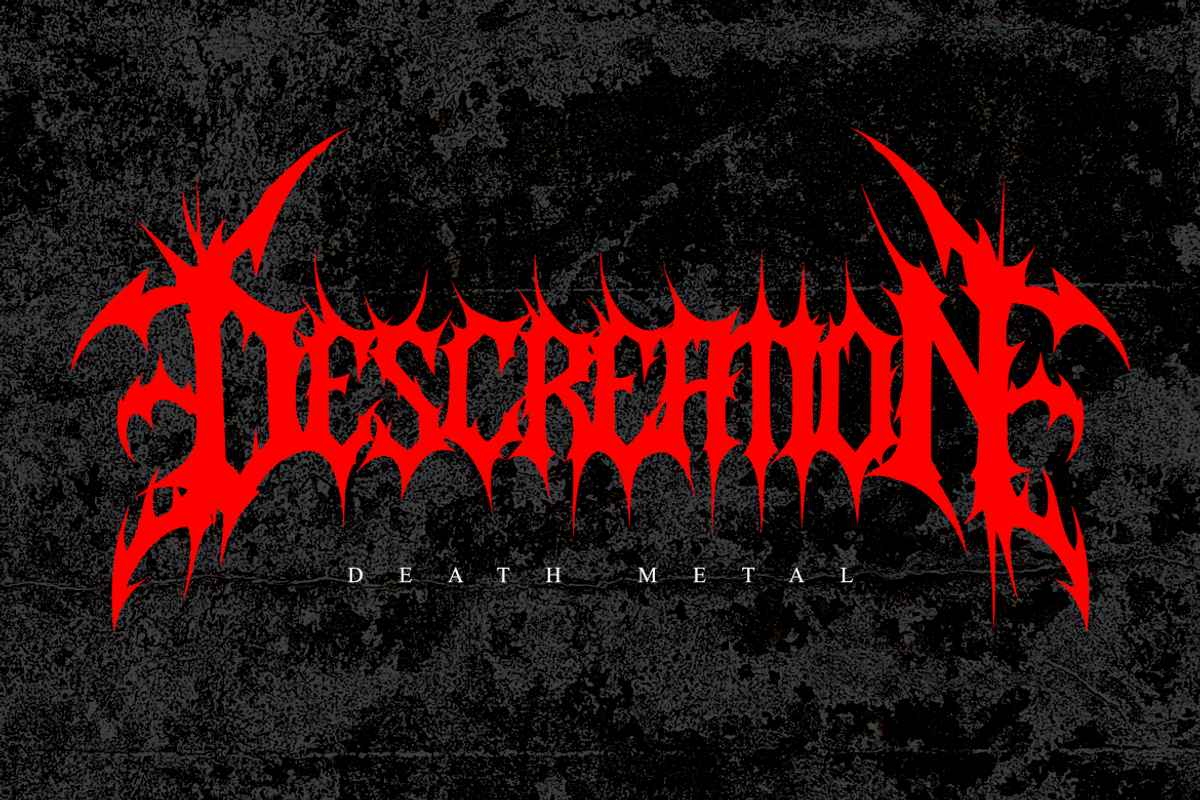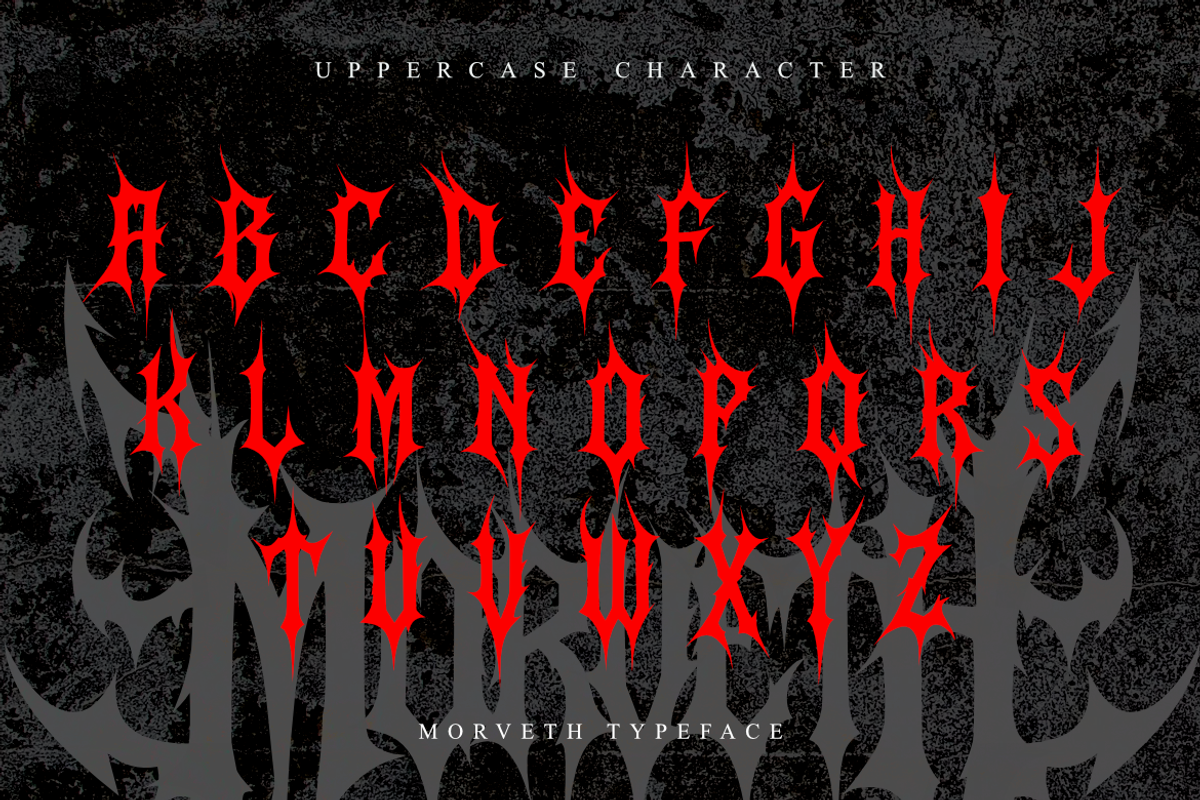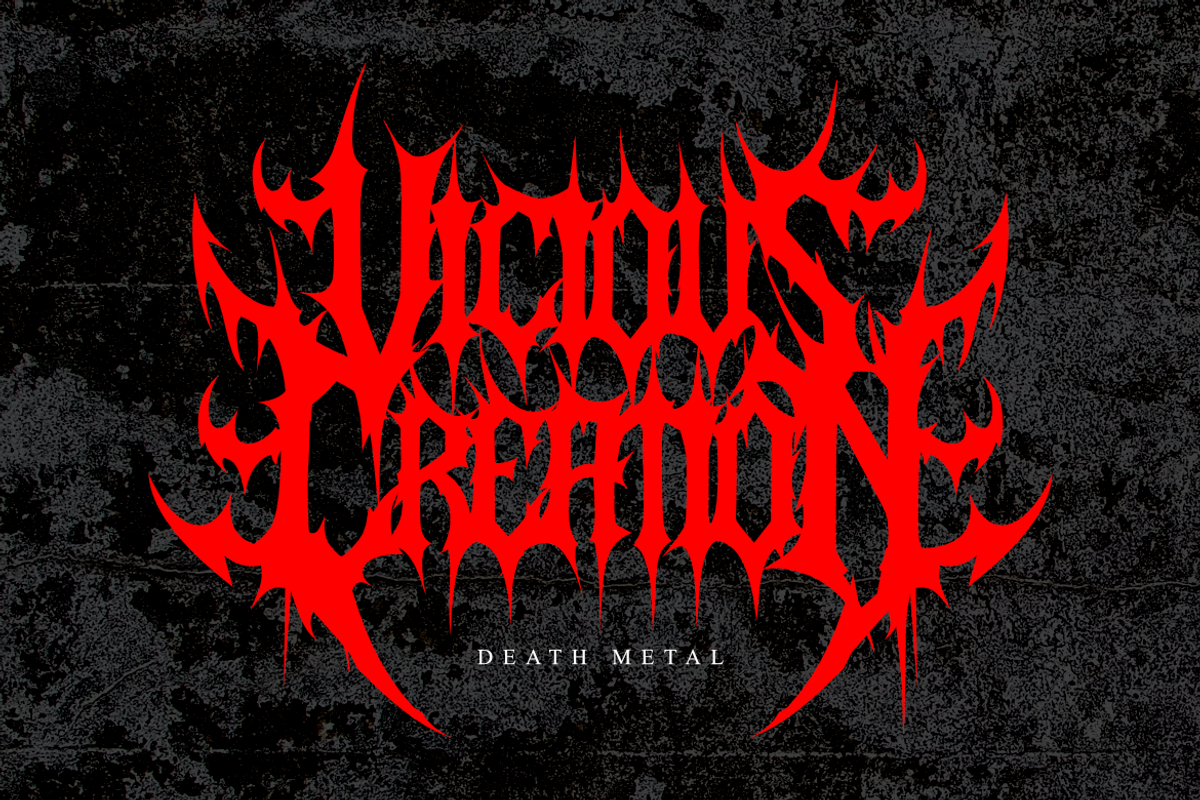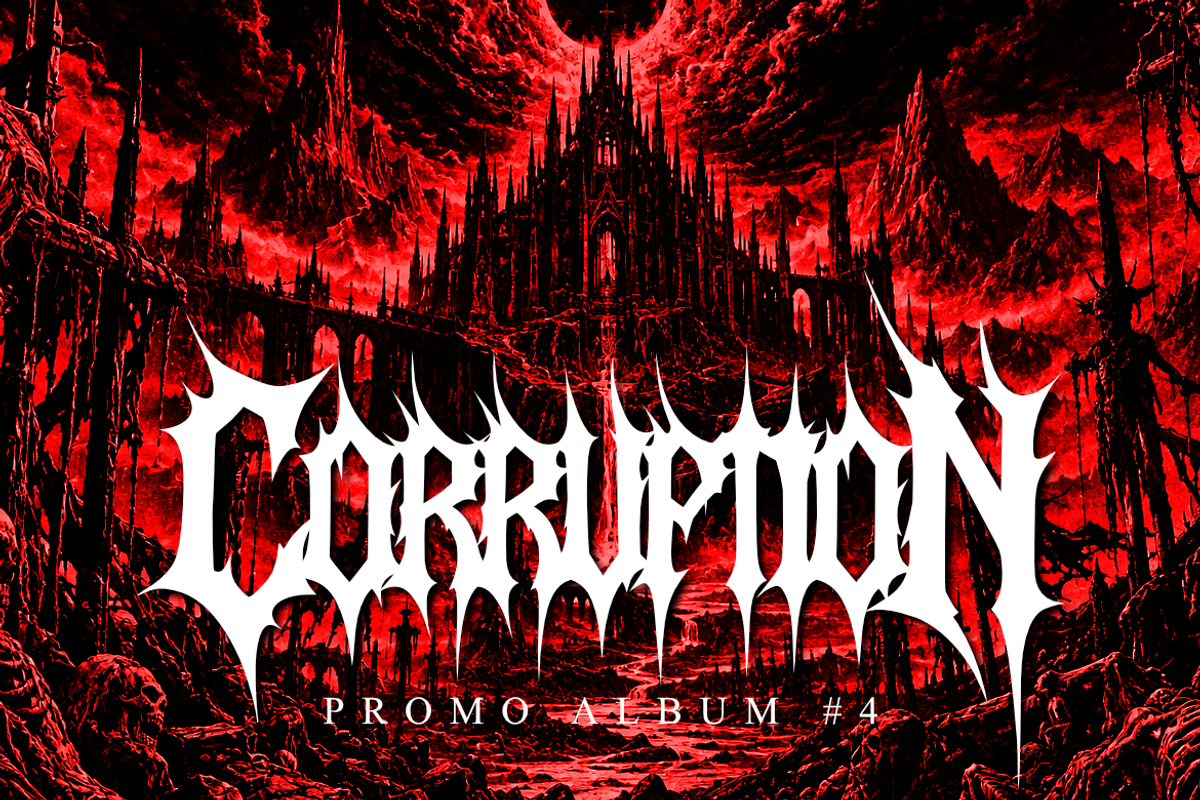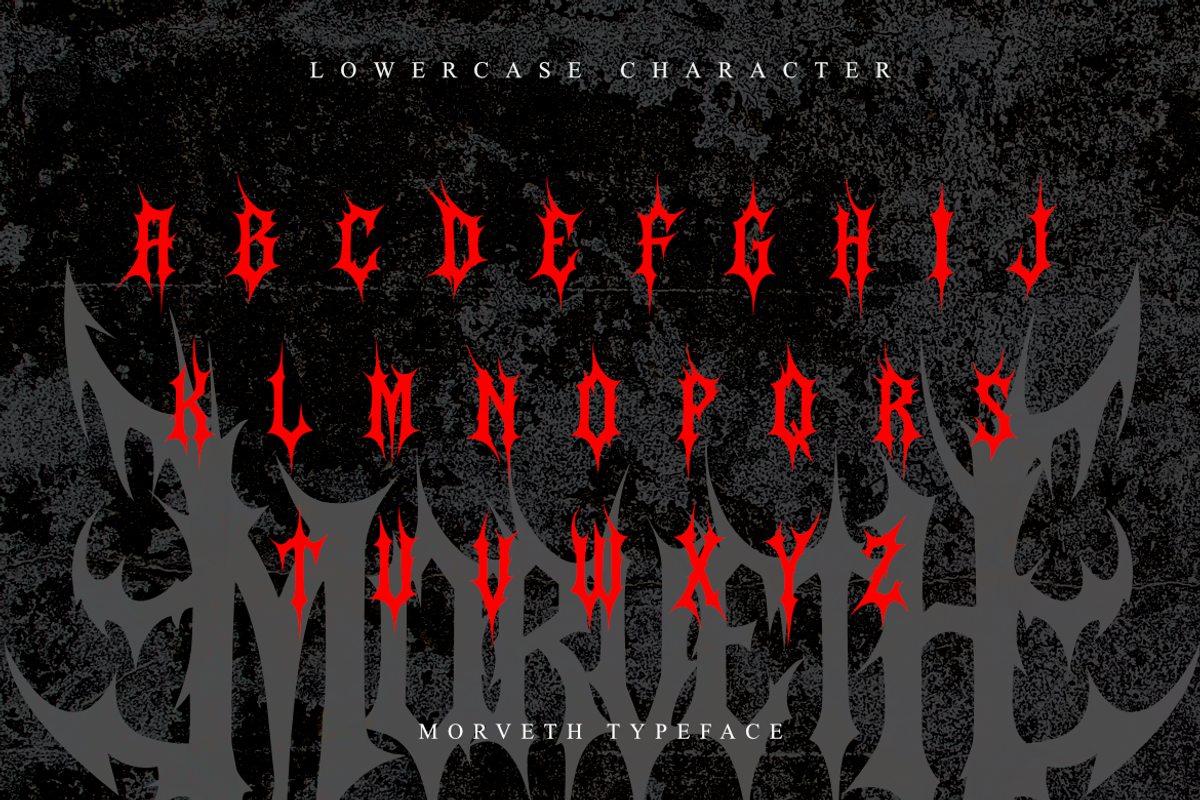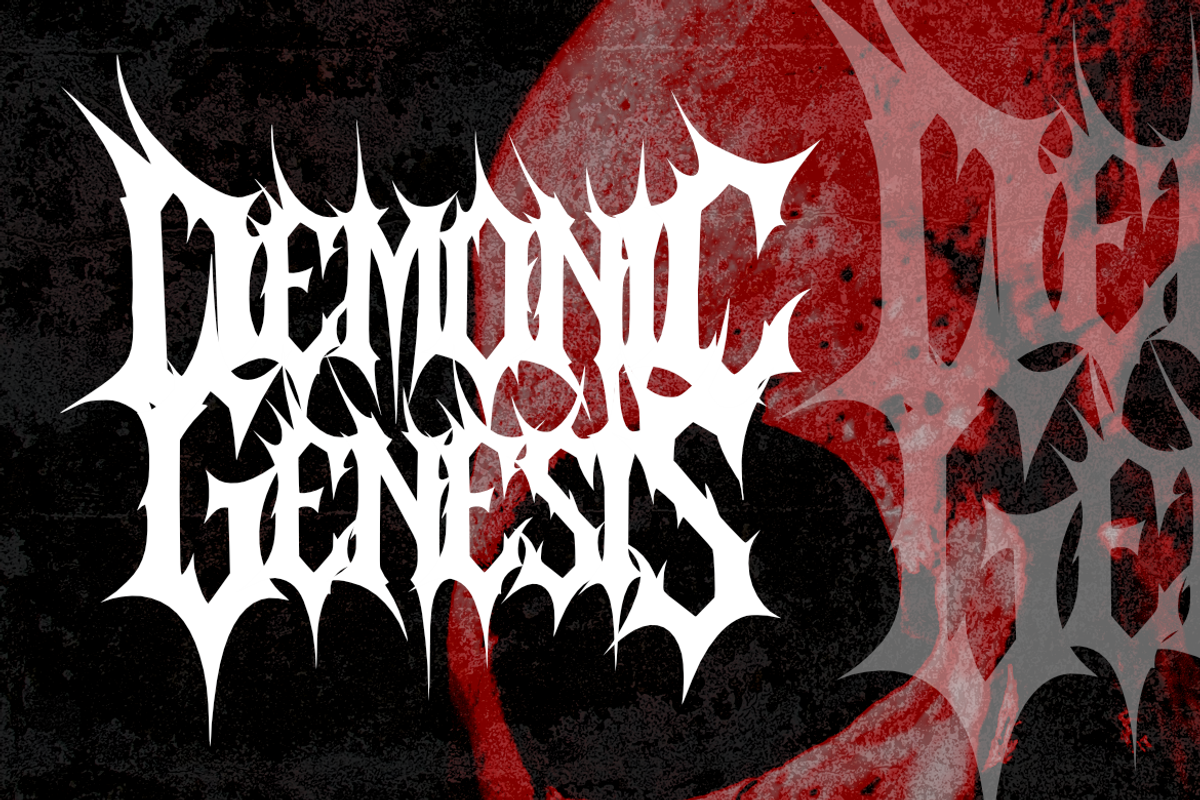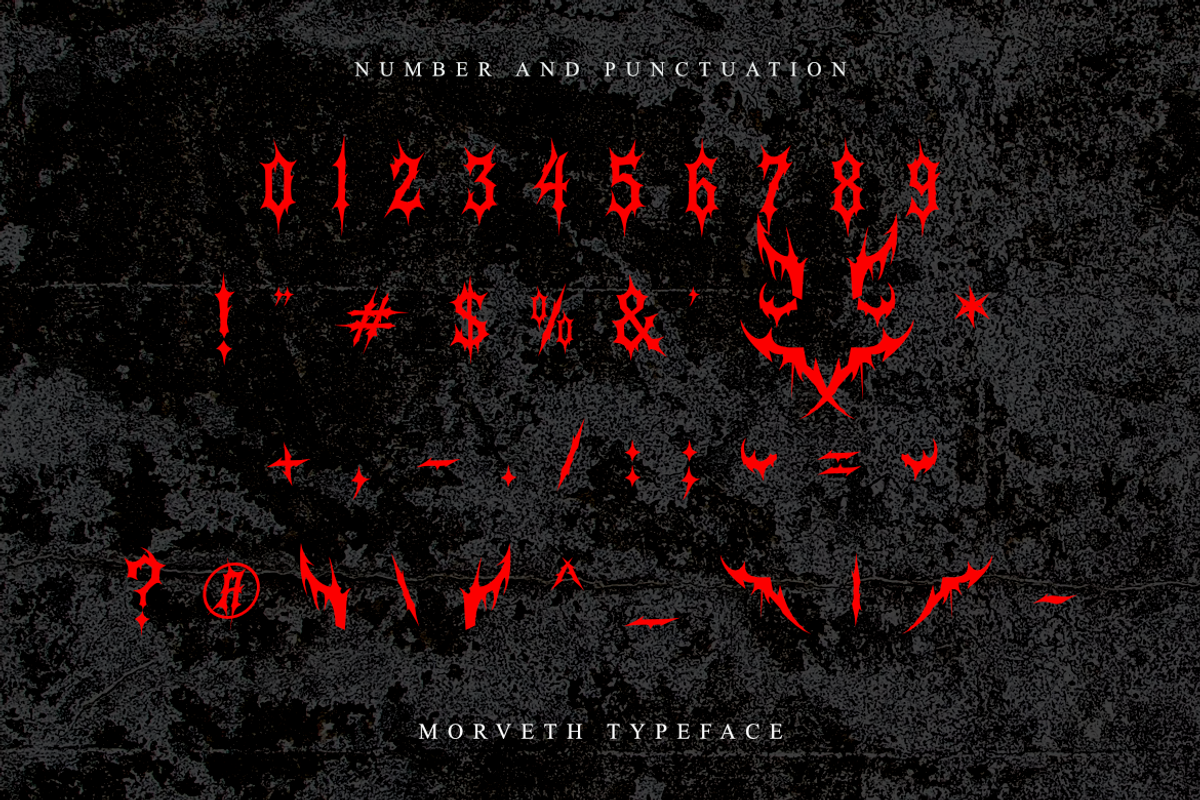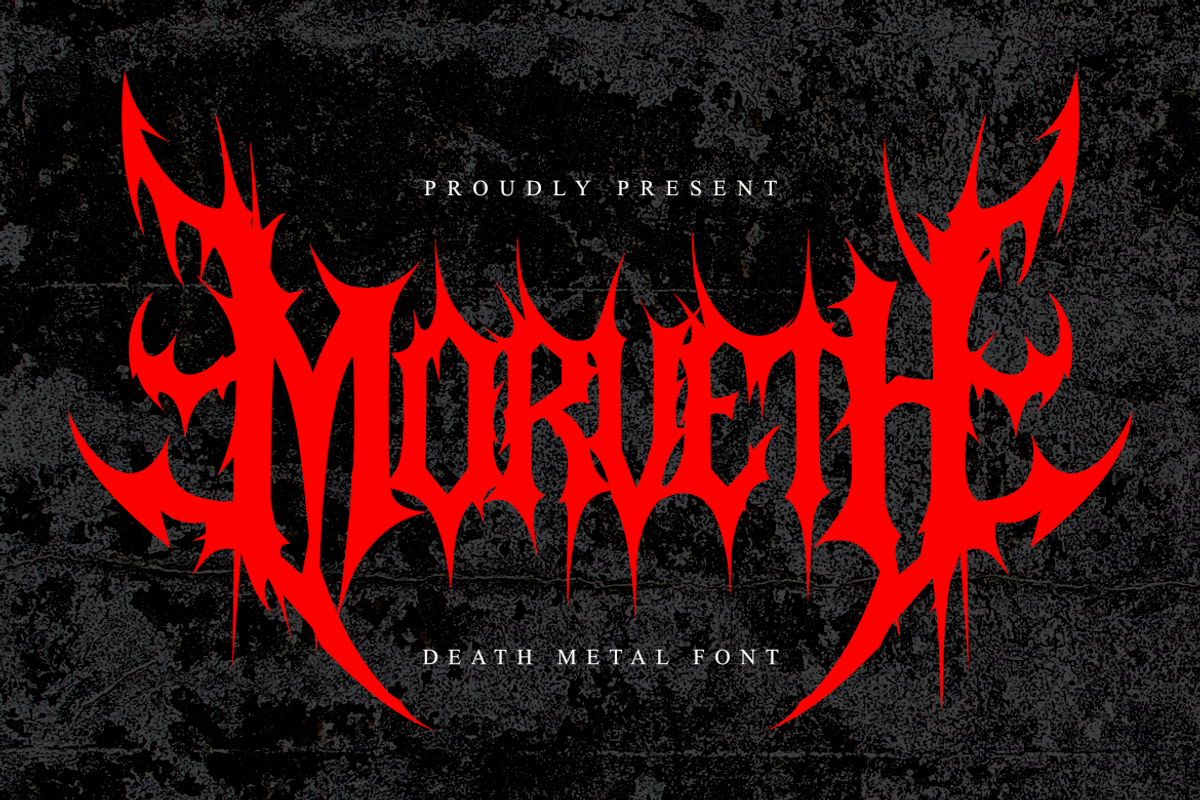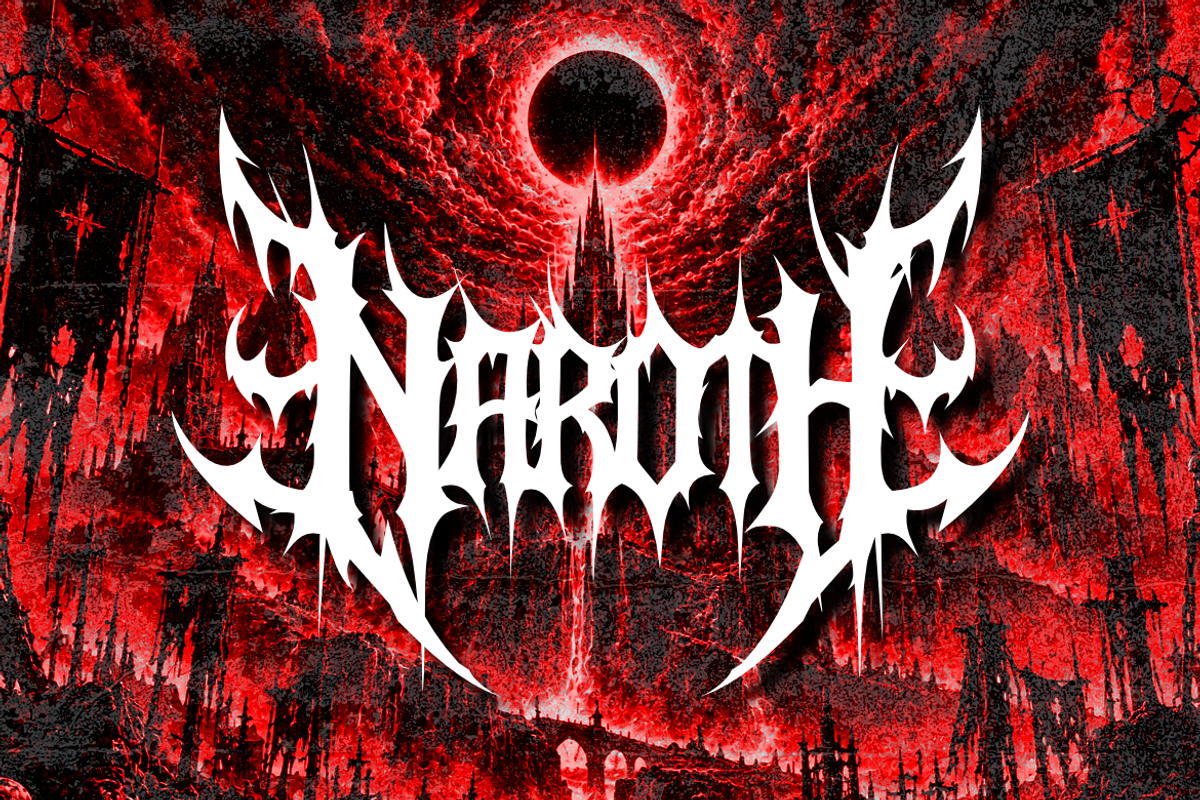
Morveth | Death Metal Font
Unleash dark, raw power with Morveth, an extreme death metal typeface crafted for brutal visual identities, heavy music branding, and dark underground art. Blending classic blackletter shapes with aggressive spiky flourishes and jagged thorns, Morveth brings authentic underground metal aesthetics to your design arsenal.
Engineered specifically for heavy music culture, Morveth is perfect for creating high-impact band logos, album art, shirt graphics, festival banners, and dark horror typography. Its intricate structure and powerful silhouette ensure that your artwork stands out with unmistakable intensity.
Perfect for high-impact headlines, band logos, and extreme merch design.